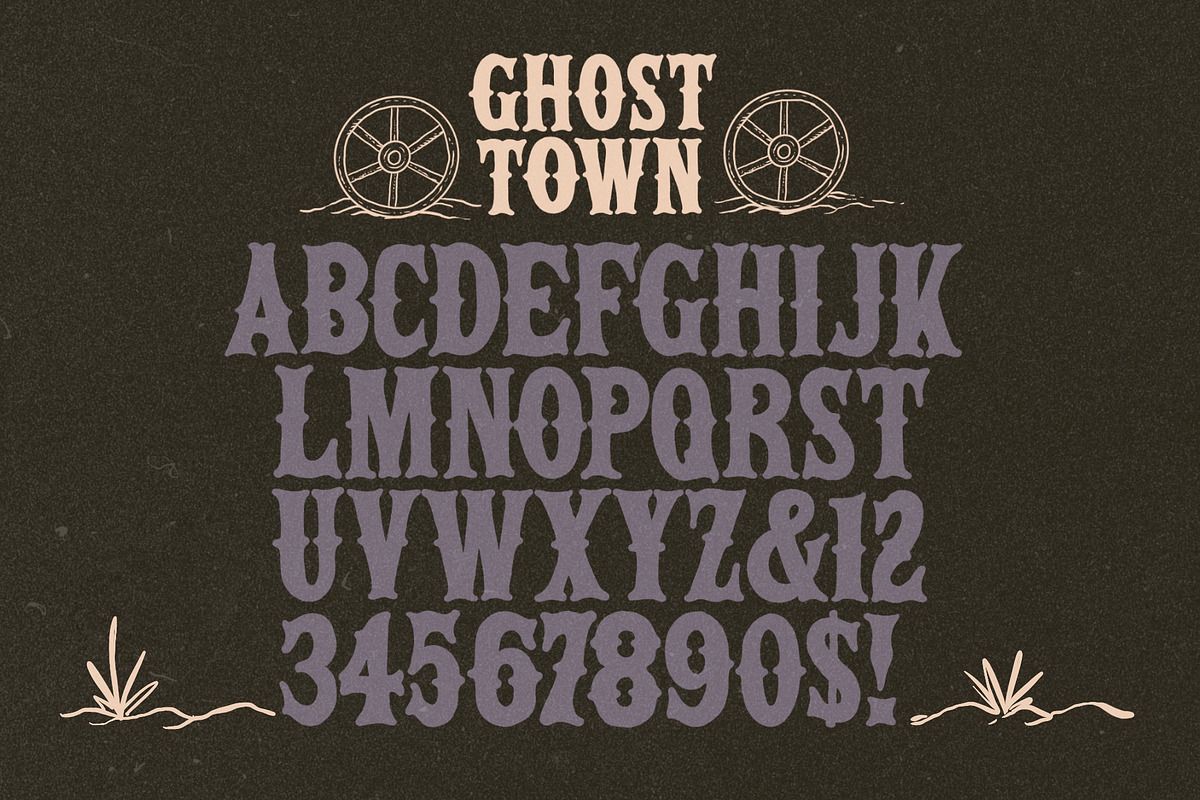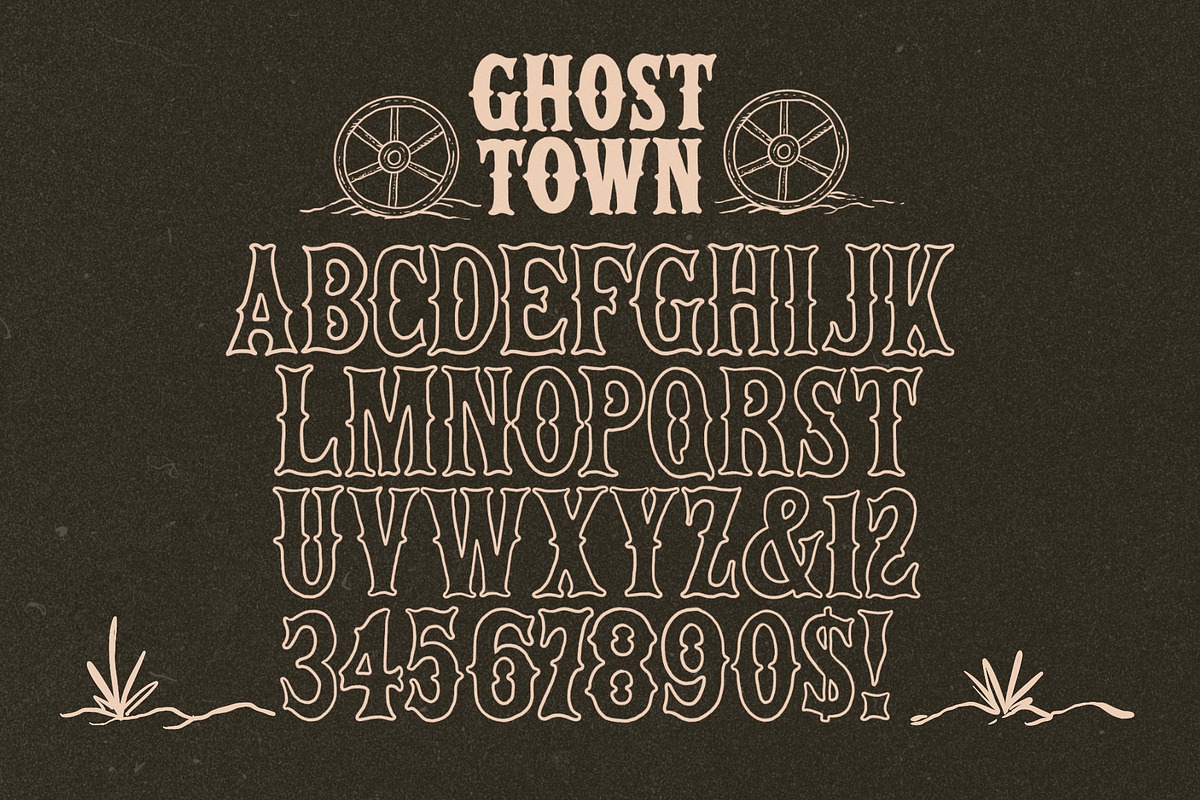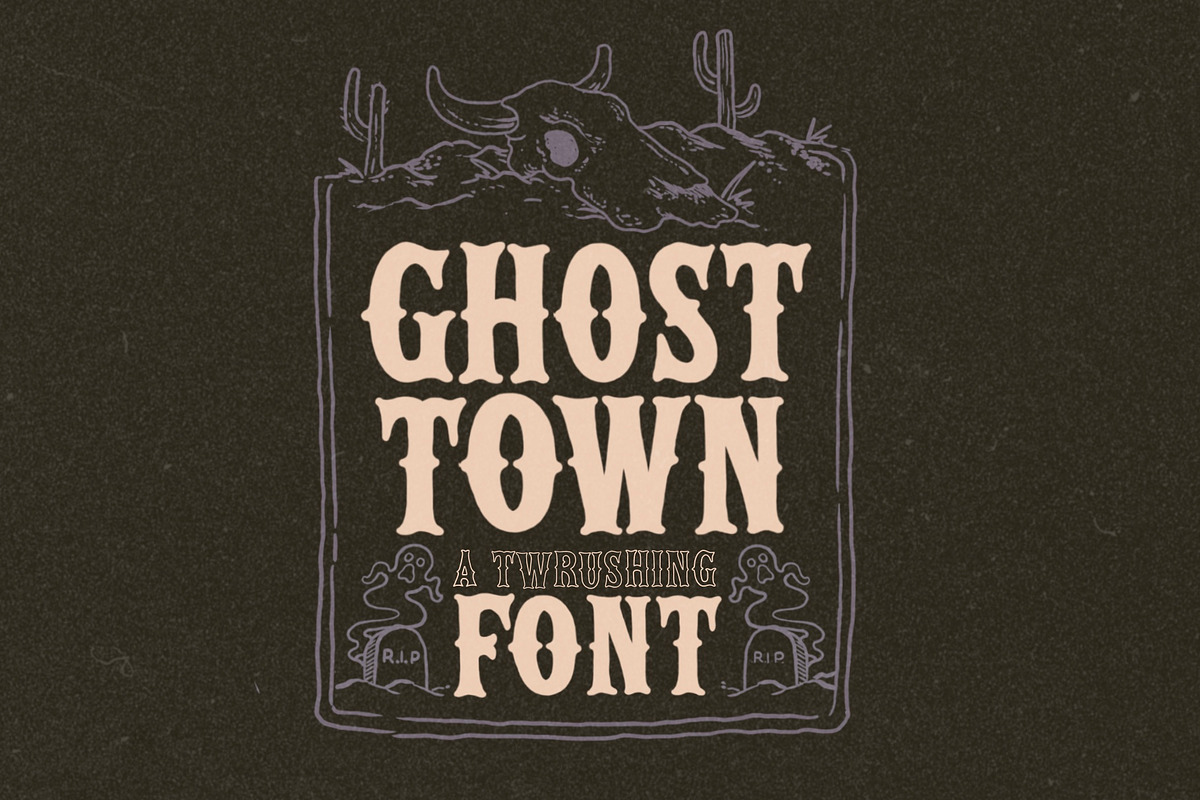
Ghost Town Western Typeface
Ghost Town is a western font inspired by the best wood type of the 19th Century. Comes with a filled and lined version and simple punctuation.